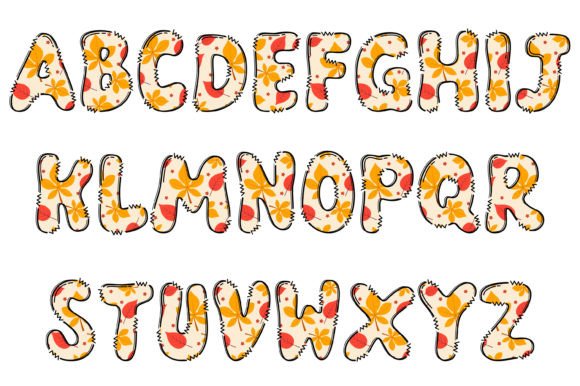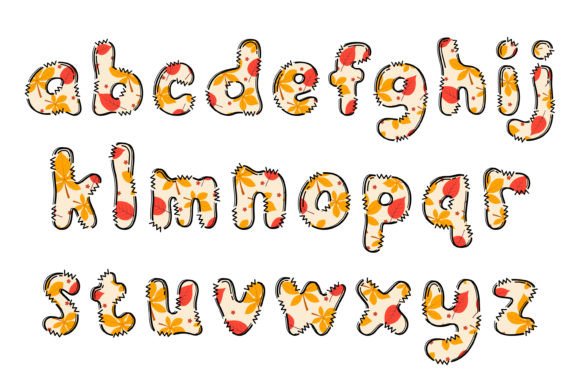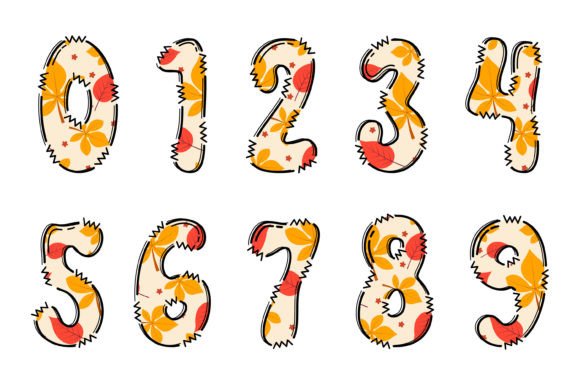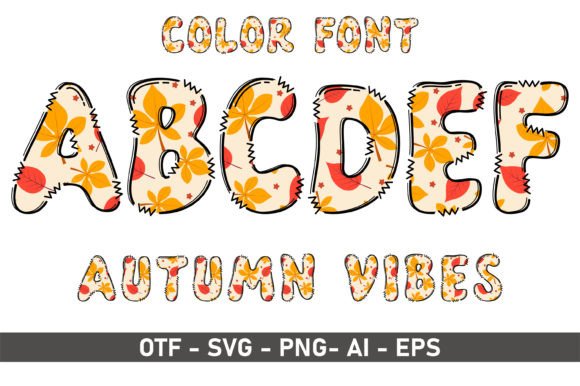
Autumn Vibes Font: Bringing Warmth and Whimsy to Your Designs
As the seasons change and autumn arrives, designers and crafters often look for fonts that evoke a sense of warmth, coziness, and playfulness. The Autumn Vibes Font is a perfect choice for those seeking to add a touch of whimsy and artistic flair to their designs. In this article, we’ll explore the features and benefits of this delightful font, as well as its various uses and compatibility with popular design software.
A Font that Embodies the Spirit of Autumn
The Autumn Vibes Font is a charming and versatile typeface that captures the essence of the autumn season. Its playful and artistic feel makes it an ideal choice for a wide range of design projects, from children’s books and posters to invitations, greeting cards, and more. The font’s whimsical and colorful nature is sure to engage young audiences, making it a popular choice for children’s books and educational materials.
Design Possibilities are Endless
With the Autumn Vibes Font, designers and crafters can create a variety of stunning designs that showcase their creativity. Some popular uses for this font include:
- Children’s books: The font’s playful and colorful nature makes it perfect for creating engaging and interactive stories for young readers.
- Posters and flyers: Add a touch of autumnal charm to your promotional materials with this delightful font.
- Invitations and greeting cards: Create warm and inviting invitations and cards that set the tone for special occasions.
- Craft projects: The Autumn Vibes Font is compatible with cutting machines like Cricut Design Space, making it a great choice for crafters and DIY enthusiasts.
Tips for Using the Autumn Vibes Font
To get the most out of the Autumn Vibes Font, here are a few tips to keep in mind:
- Experiment with colors: The color version of the font offers a range of possibilities for adding a pop of color to your designs.
- Mix and match: Combine the Autumn Vibes Font with other fonts and design elements to create unique and visually appealing compositions.
- Pay attention to readability: While the font is playful and whimsical, it’s essential to ensure that your text is easy to read, especially for young audiences.
The Autumn Vibes Font is a delightful and versatile typeface that brings warmth and whimsy to any design project. With its playful and artistic feel, this font is perfect for designers and crafters seeking to create engaging and visually appealing materials. Whether you’re working on a children’s book, poster, invitation, or craft project, the Autumn Vibes Font is sure to become a favorite in your design arsenal.